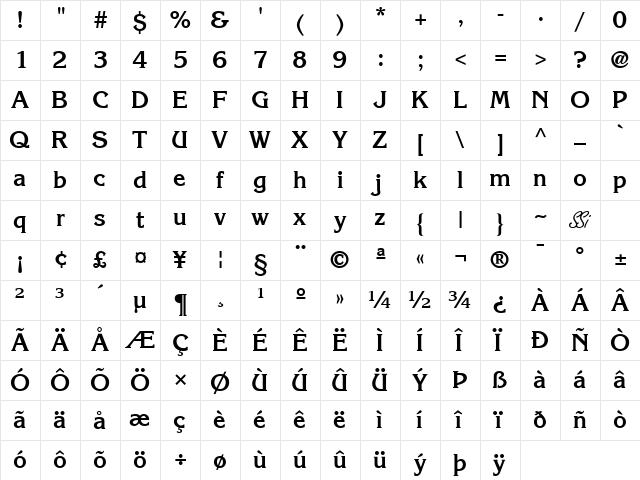
Intuition SSi Bold
Design Context for Intuition SSi
Intuition SSi is a composed and adaptable typeface that performs quietly and consistently across a wide range of design contexts. Its bold stroke weight gives it real presence on the page.